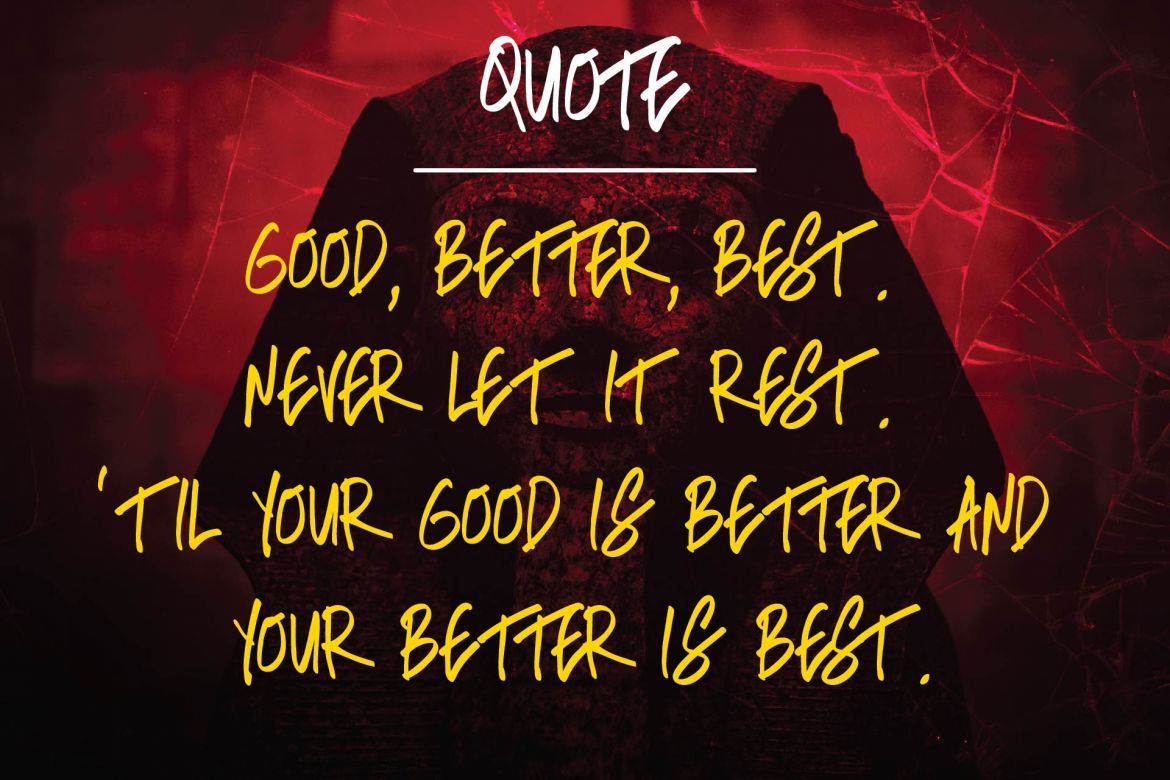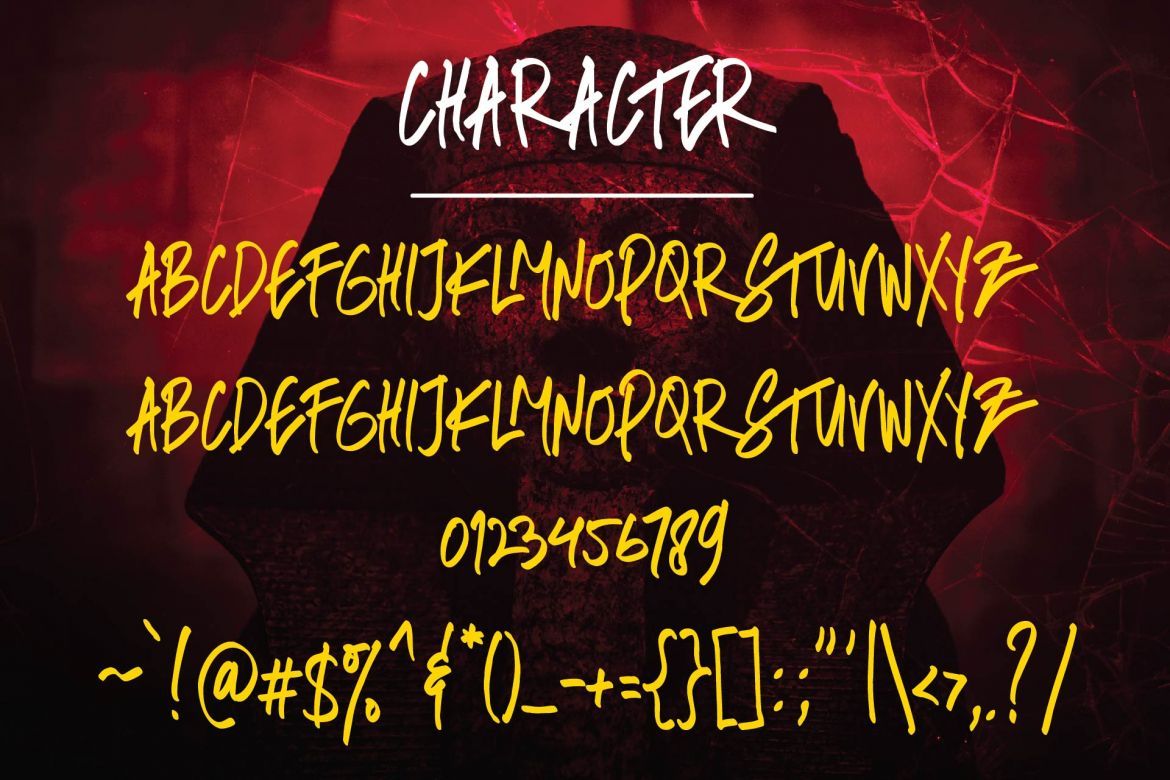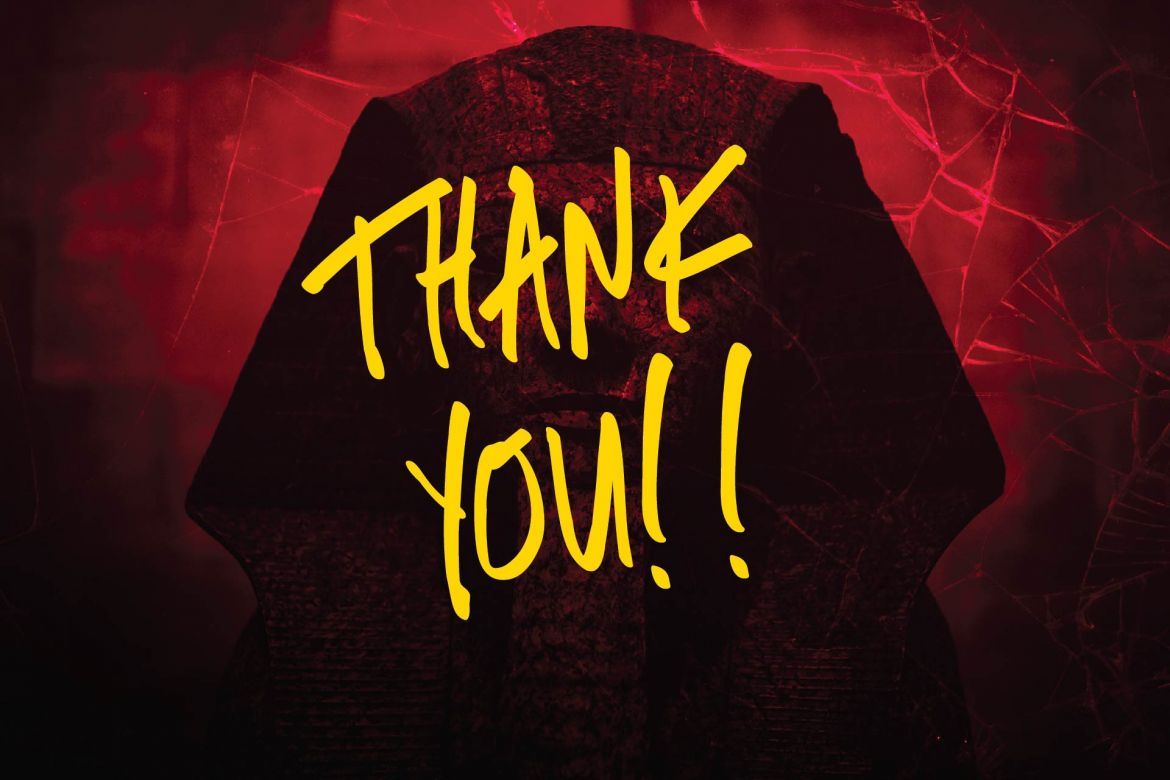
Sphinxes Typeface
Sphinxes Typeface is a A New Handwritten Lettering Typeface with all caps
Great for Apparel Brand, Logos, printed quotes, invitations, image overlays, greeting cards, product packaging, text headers, any greeting cards, book cover, Painting design style, or any design that needs natural and personal touch & whatever else your imagination holds! Mix and match the alternate characters to add an attractive message to your design.
Font in all caps. Includes numerals & punctuation